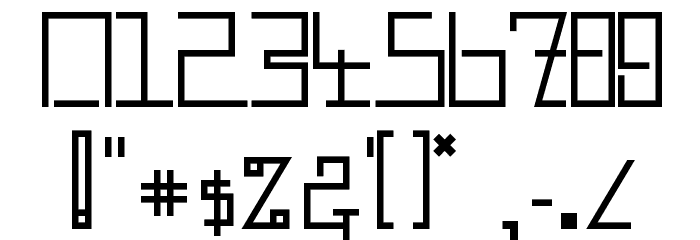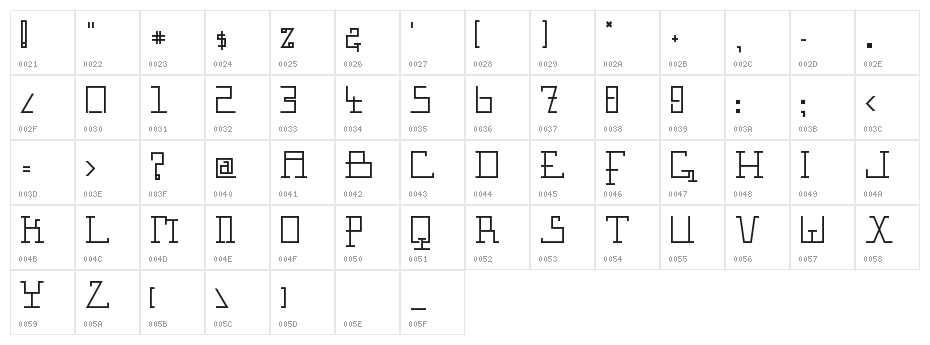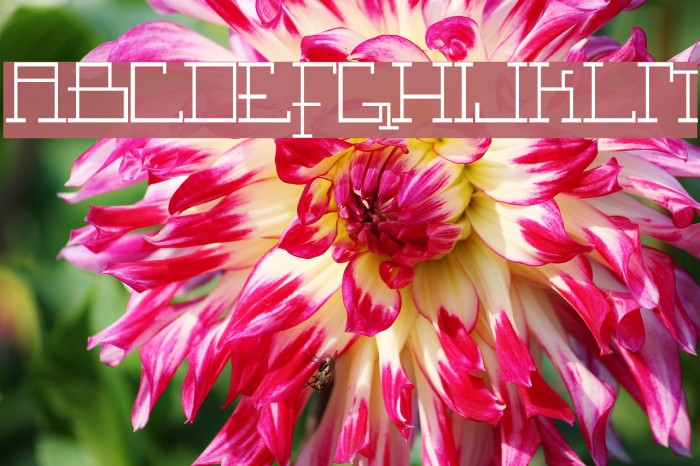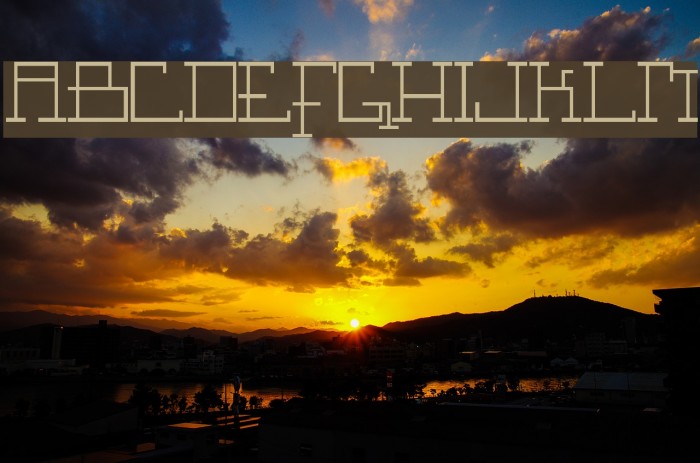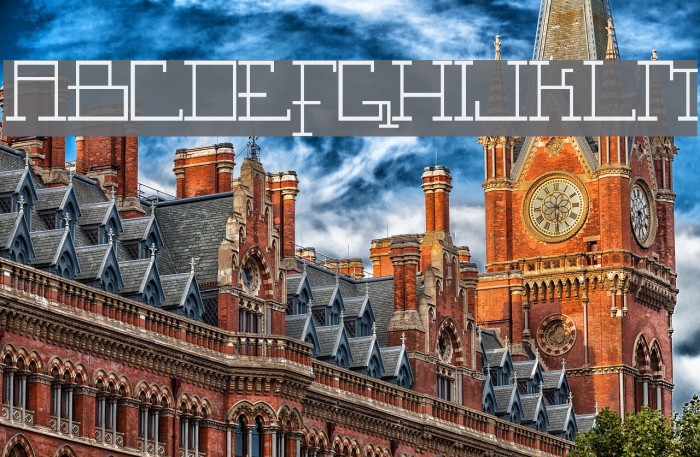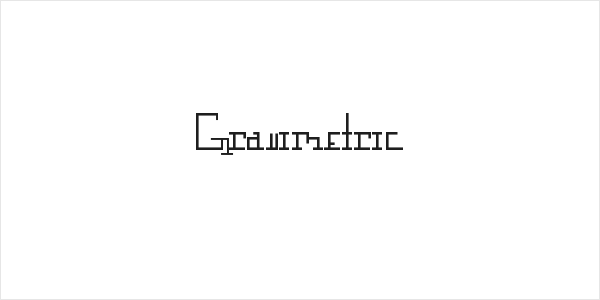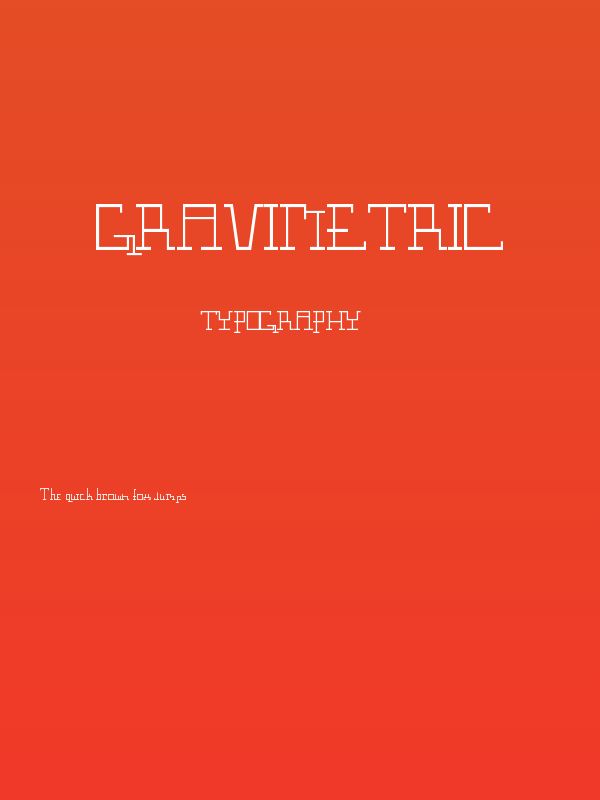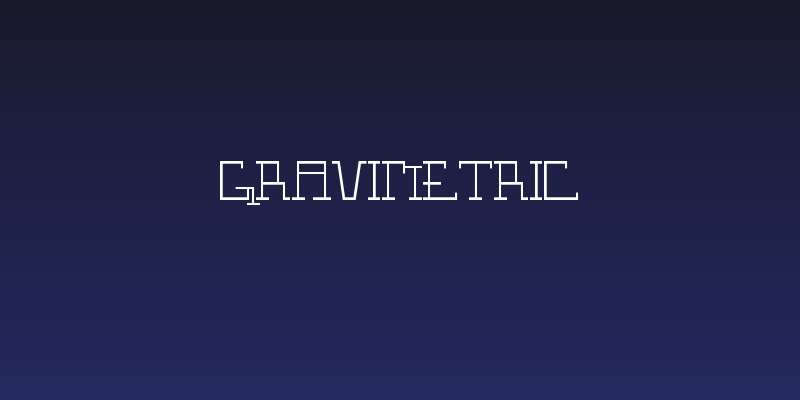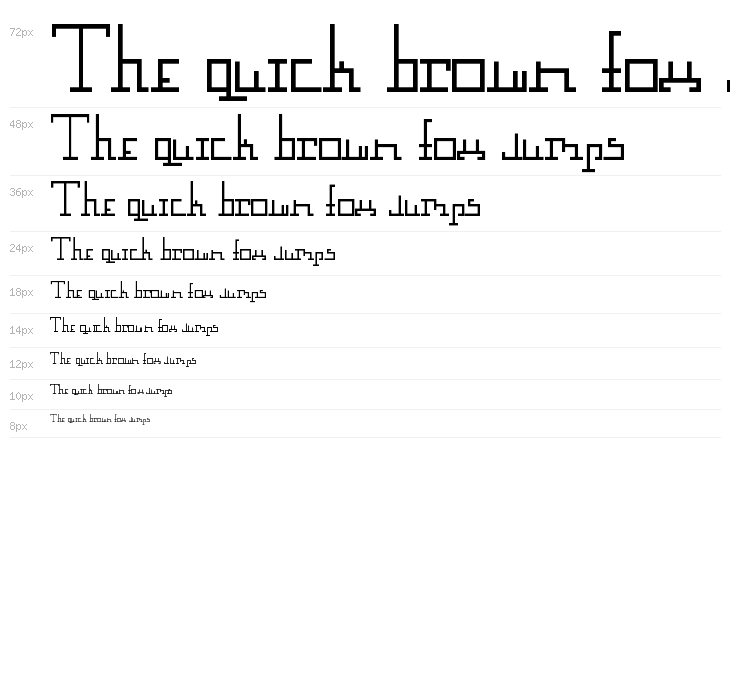
Gravimetric Font
Gravimetric Description
This font features a geometric and structured design, characterized by its angular and linear forms. The uppercase letters are bold and uniform, with a consistent height and width that create a cohesive appearance. The lowercase letters maintain the same geometric style, offering a unique blend of modern and retro aesthetics. Numbers and special characters follow the same design principles, ensuring visual harmony across all glyphs. The font's distinct style makes it suitable for projects that require a futuristic or tech-inspired look.